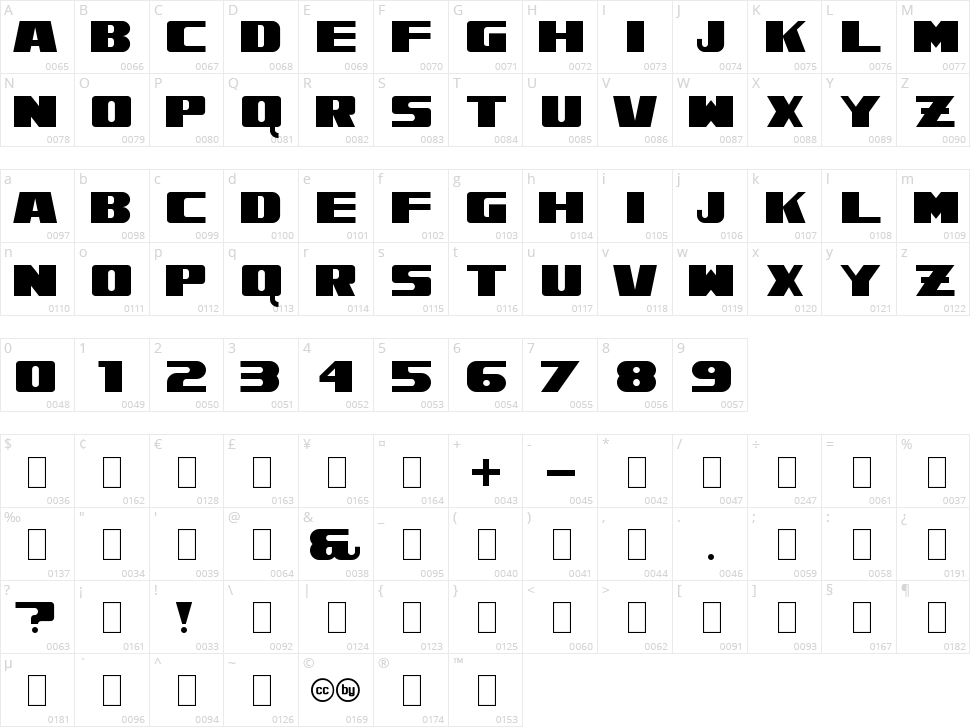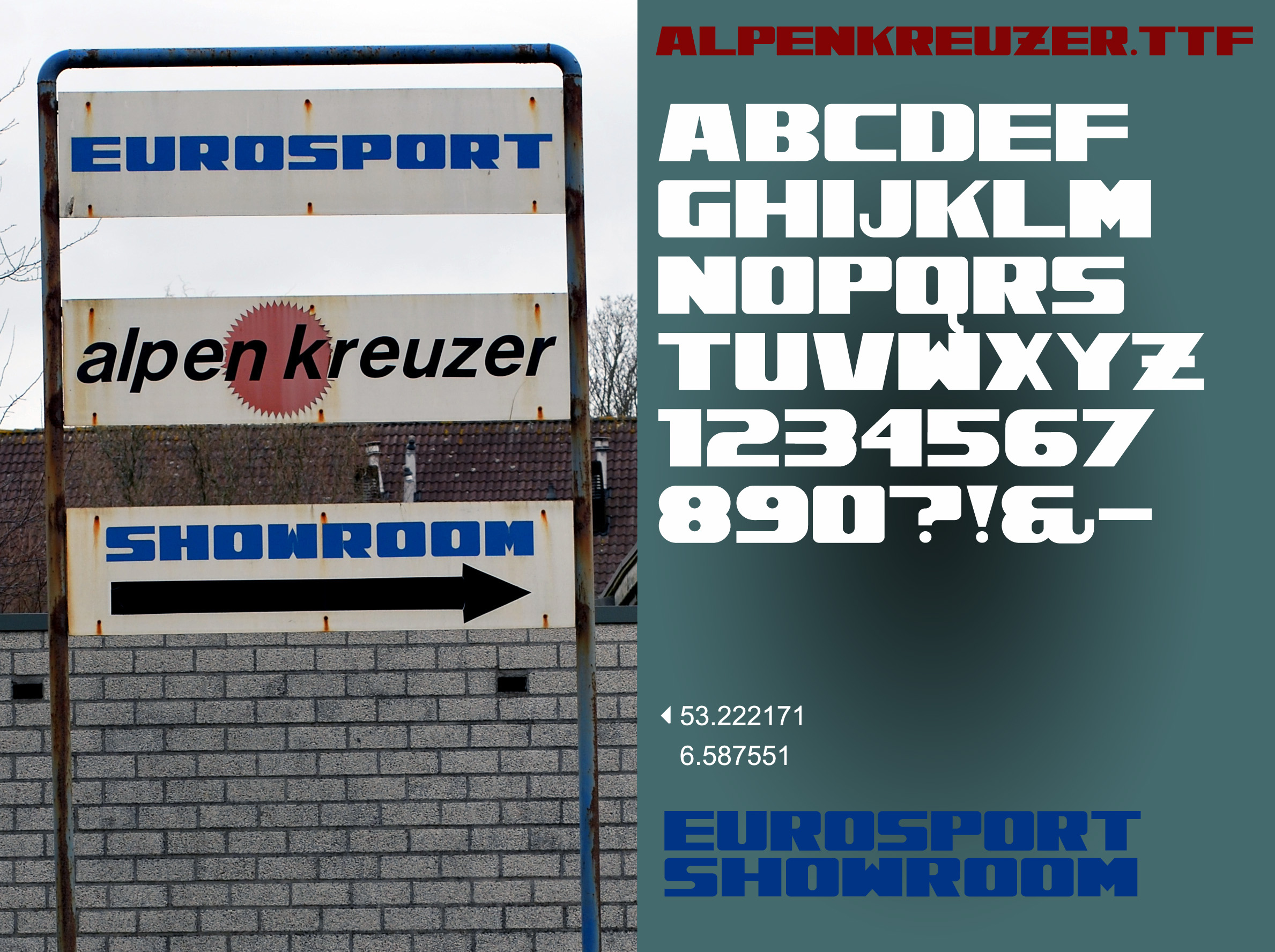
Alpenkreuzer
P.S. The Alpenkreuzer font was made after a homemade sign that I found in Groningen, the Netherlands (coordinates 53.222171 6.587551). This is a sign for a shop that sells tents and caravans.